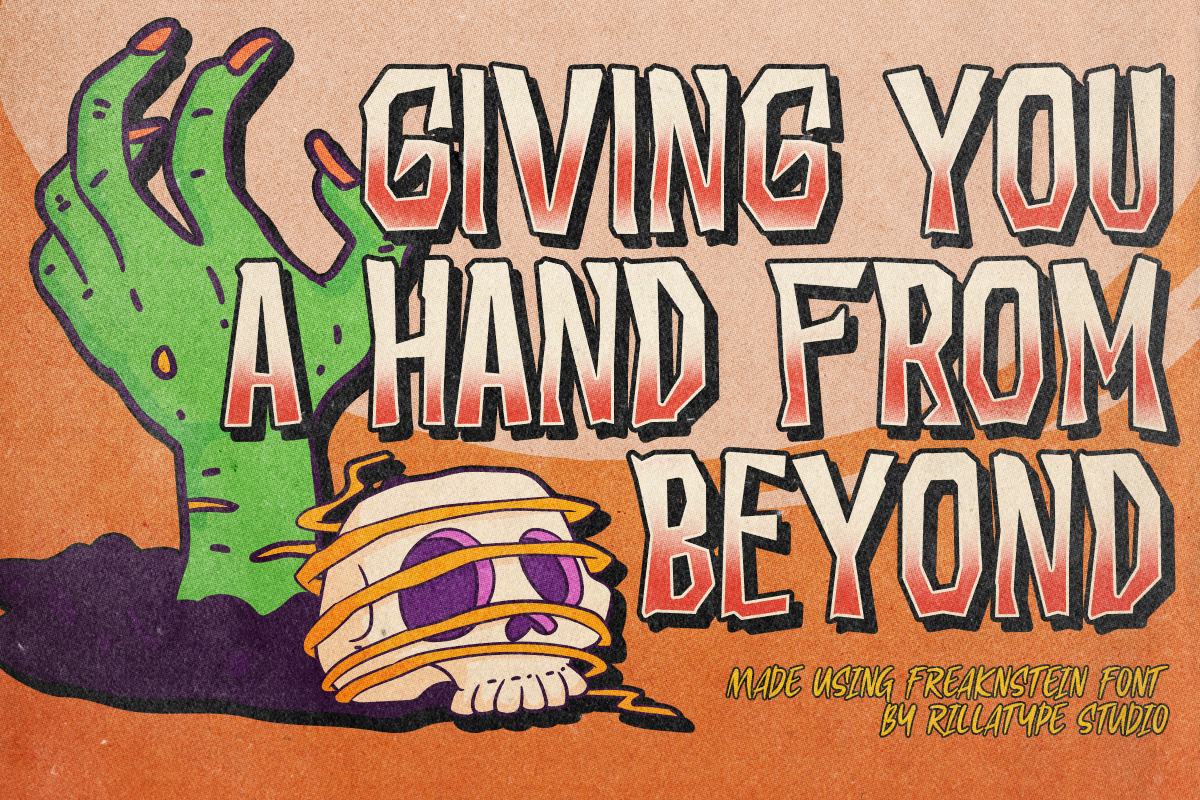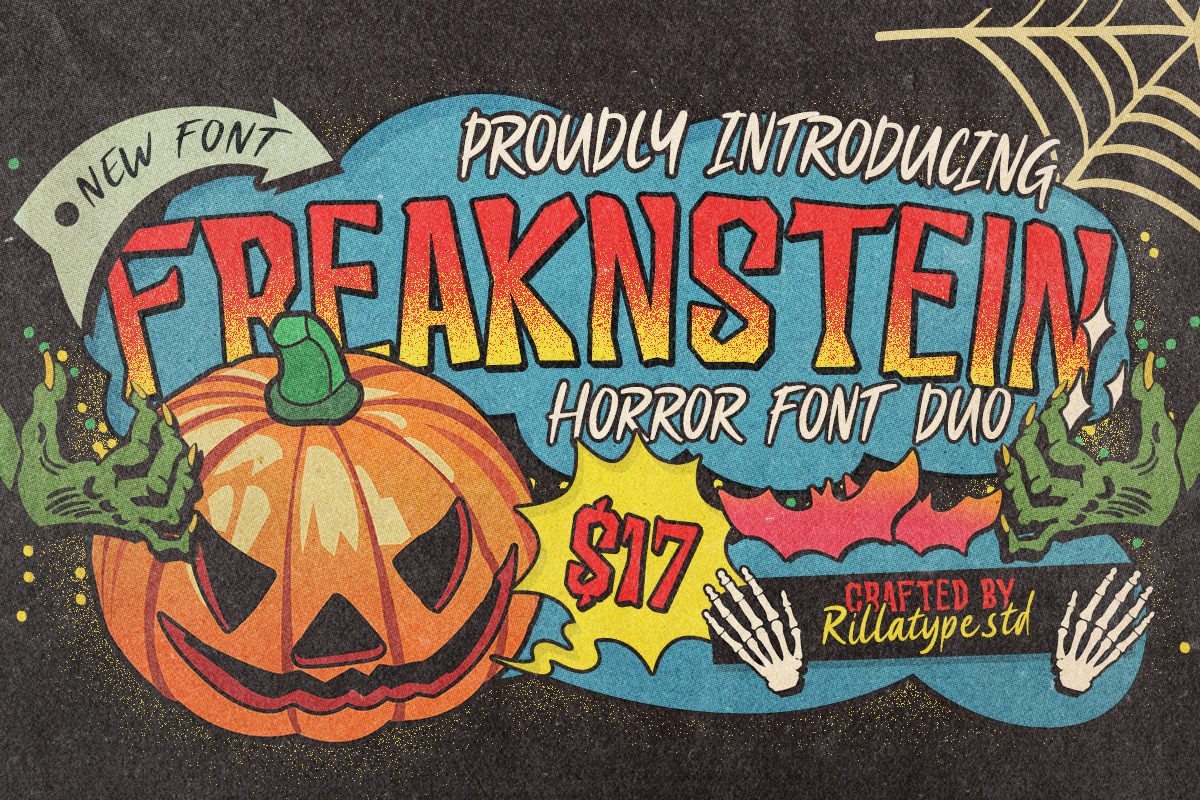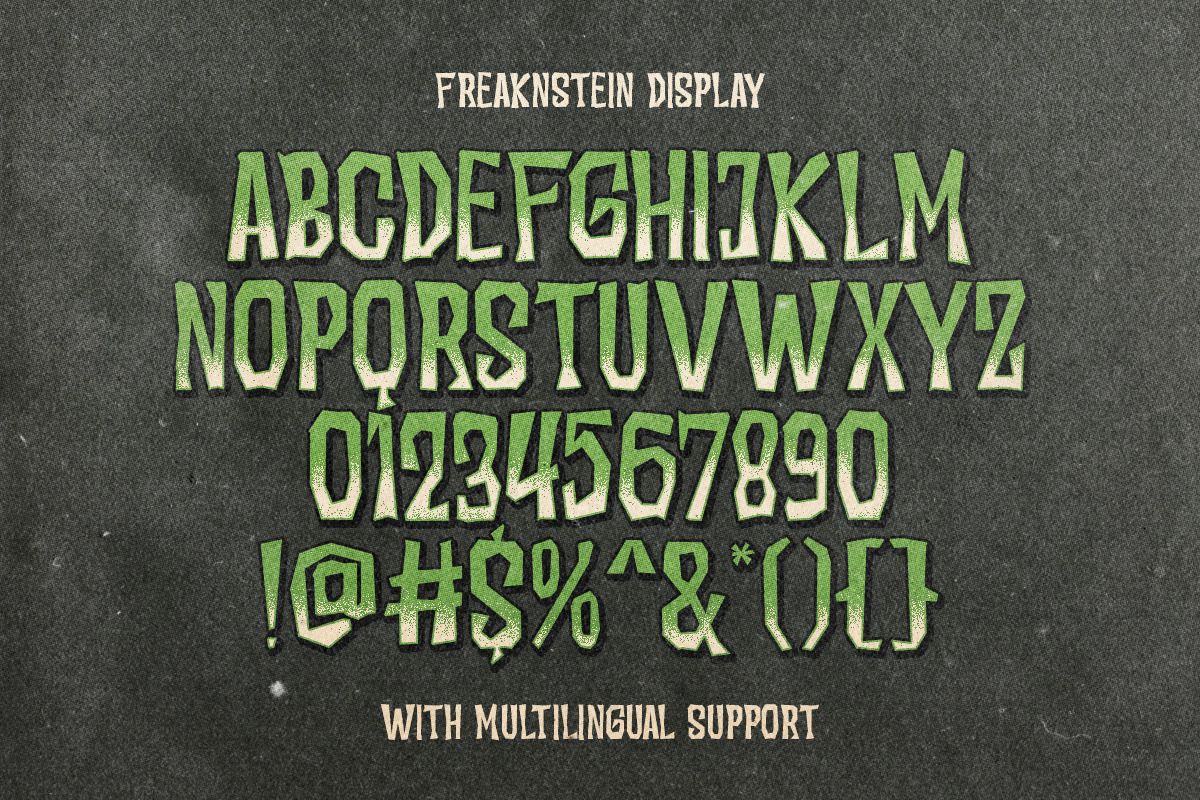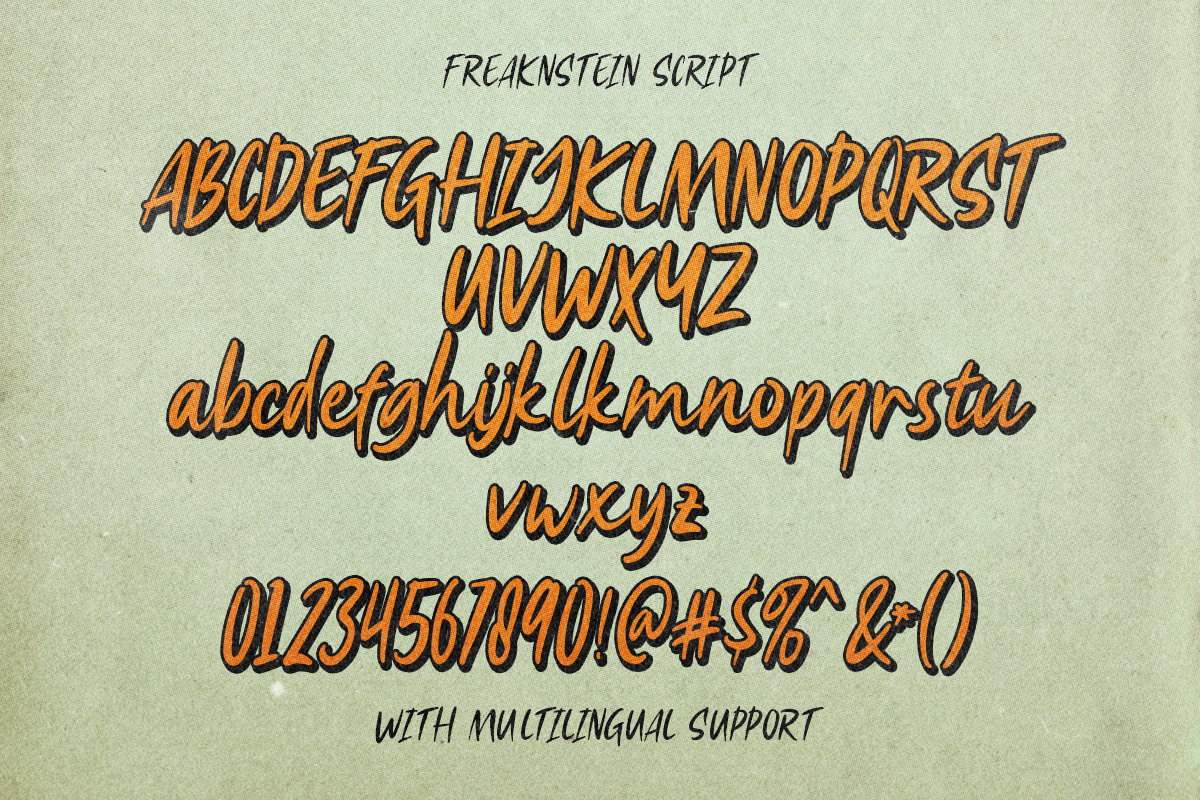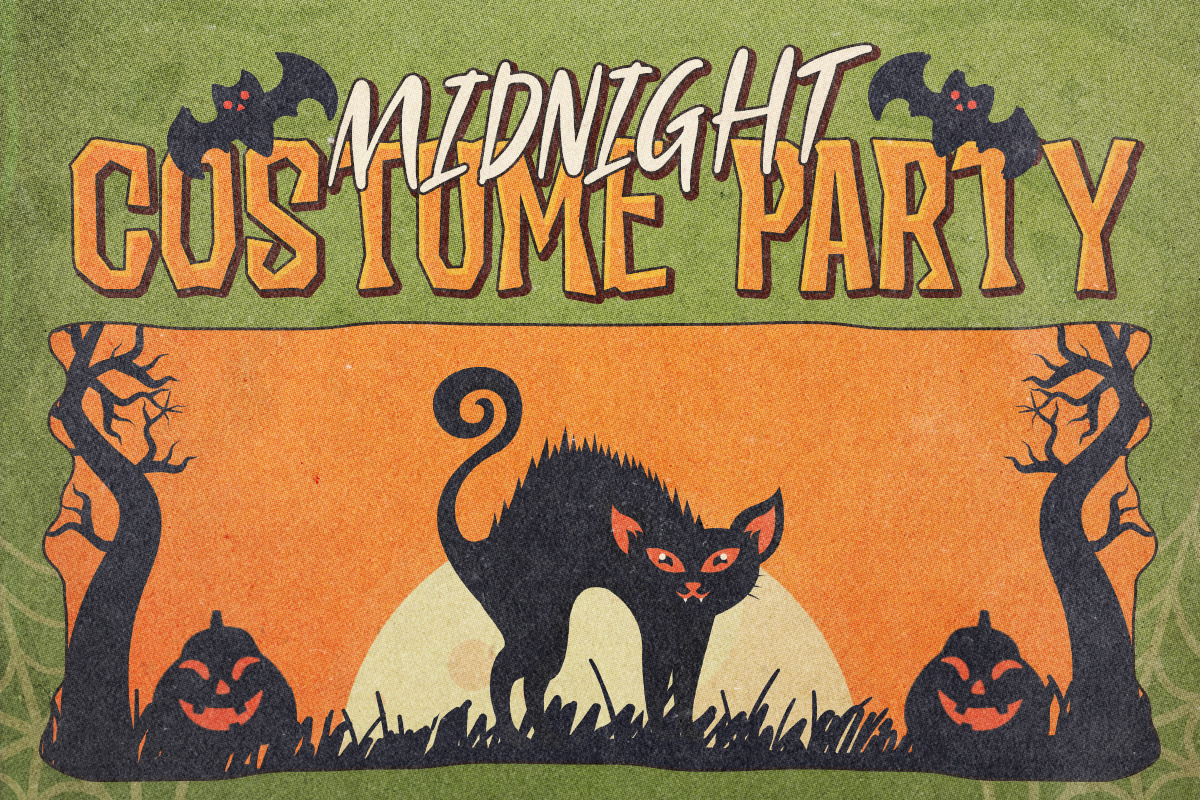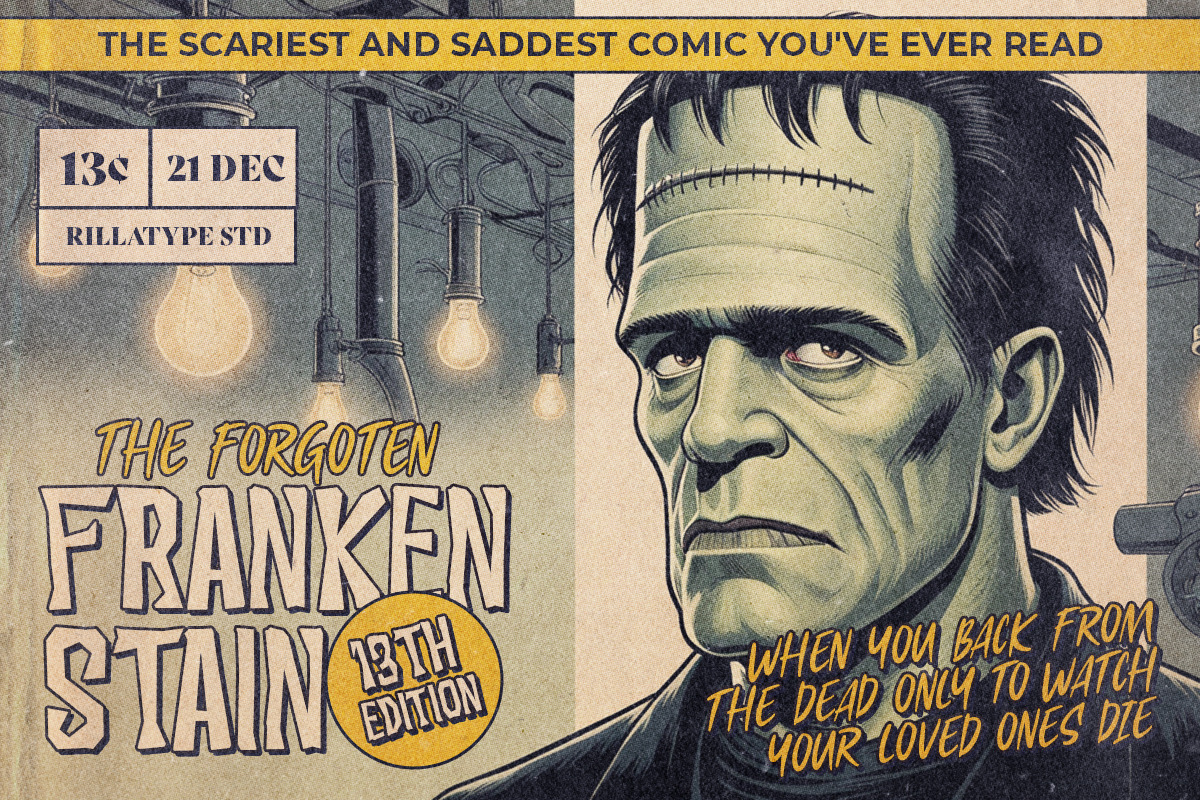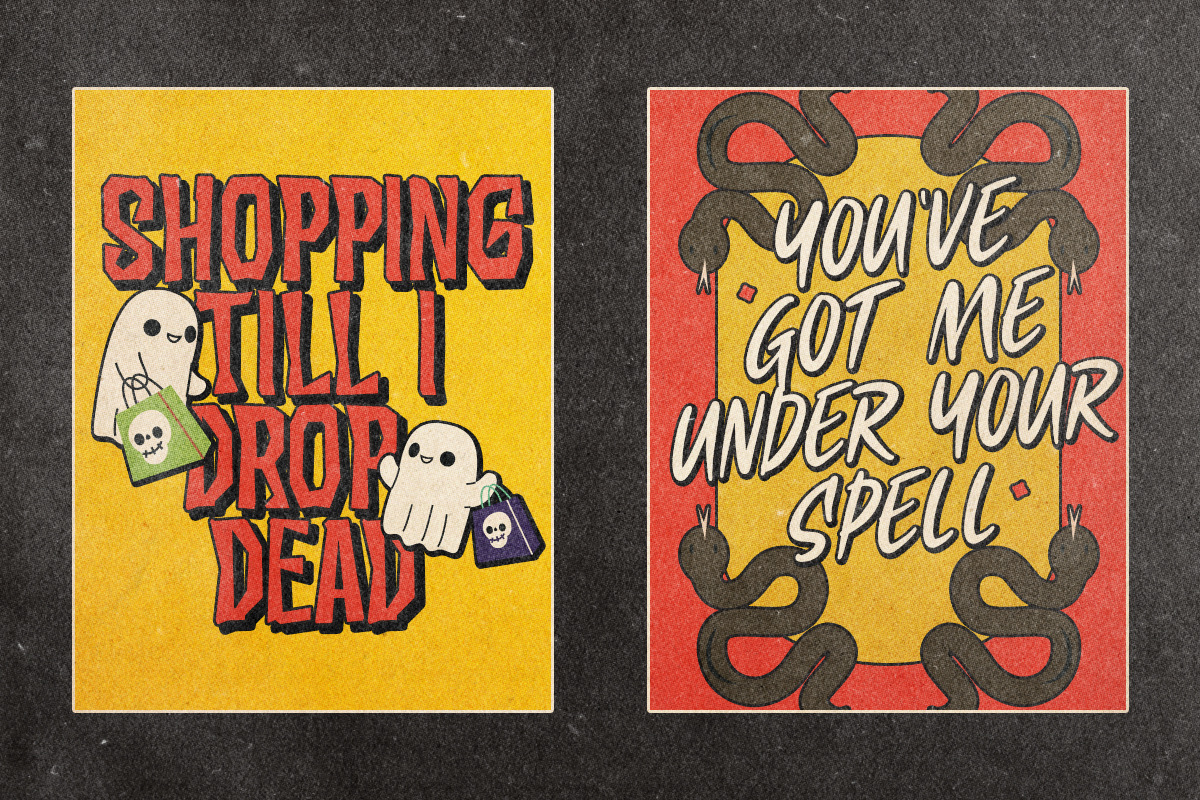
Freaknstein Horror Font Duo
Unleash the eerie charm of Freaknstein, a unique font duo featuring two distinct styles: Display and Script. Designed to capture the chilling essence of horror, the Display font brings bold, striking letters perfect for spine-tingling titles, while the Script font adds an eerie, handwritten touch to your designs. Together, they create a harmonious blend of fear and elegance, making Freaknstein ideal for Halloween posters, spooky invitations, or any project that needs a dark, haunted twist. Dare to experiment and bring your terrifying concepts to life!